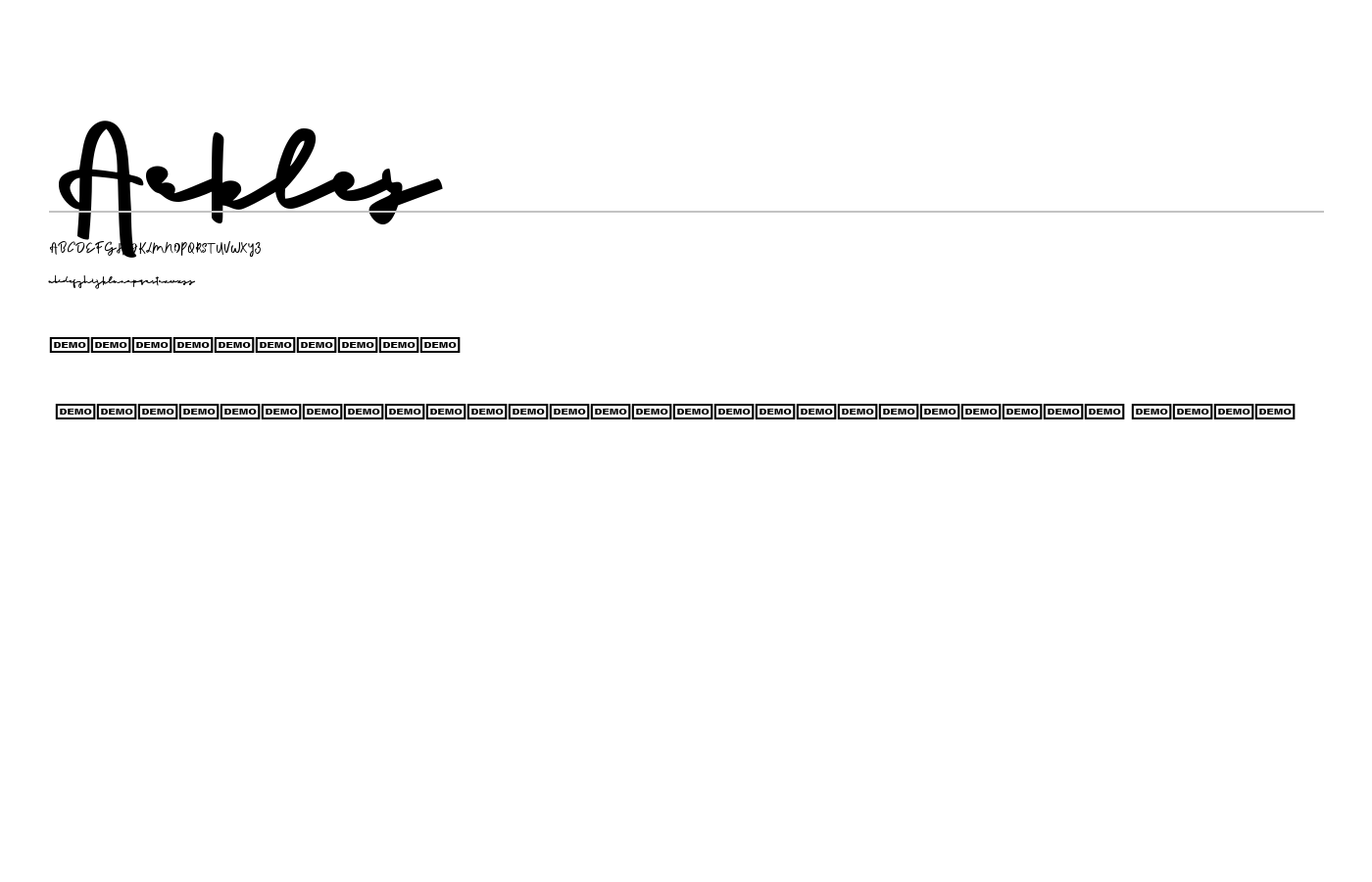
Arkley Font is a playful and casual handwritten script that exudes a friendly and personal touch. Its smooth, rounded strokes and informal letterforms make it perfect for creative projects, branding, and invitations where a warm, approachable feel is desired. This font works best for headlines, logos, and designs seeking a natural, hand-crafted aesthetic.
Arkley Font
About Arkley Font
| Font family | Arkley Font |
| Designer | Hleb Zhyhunou |